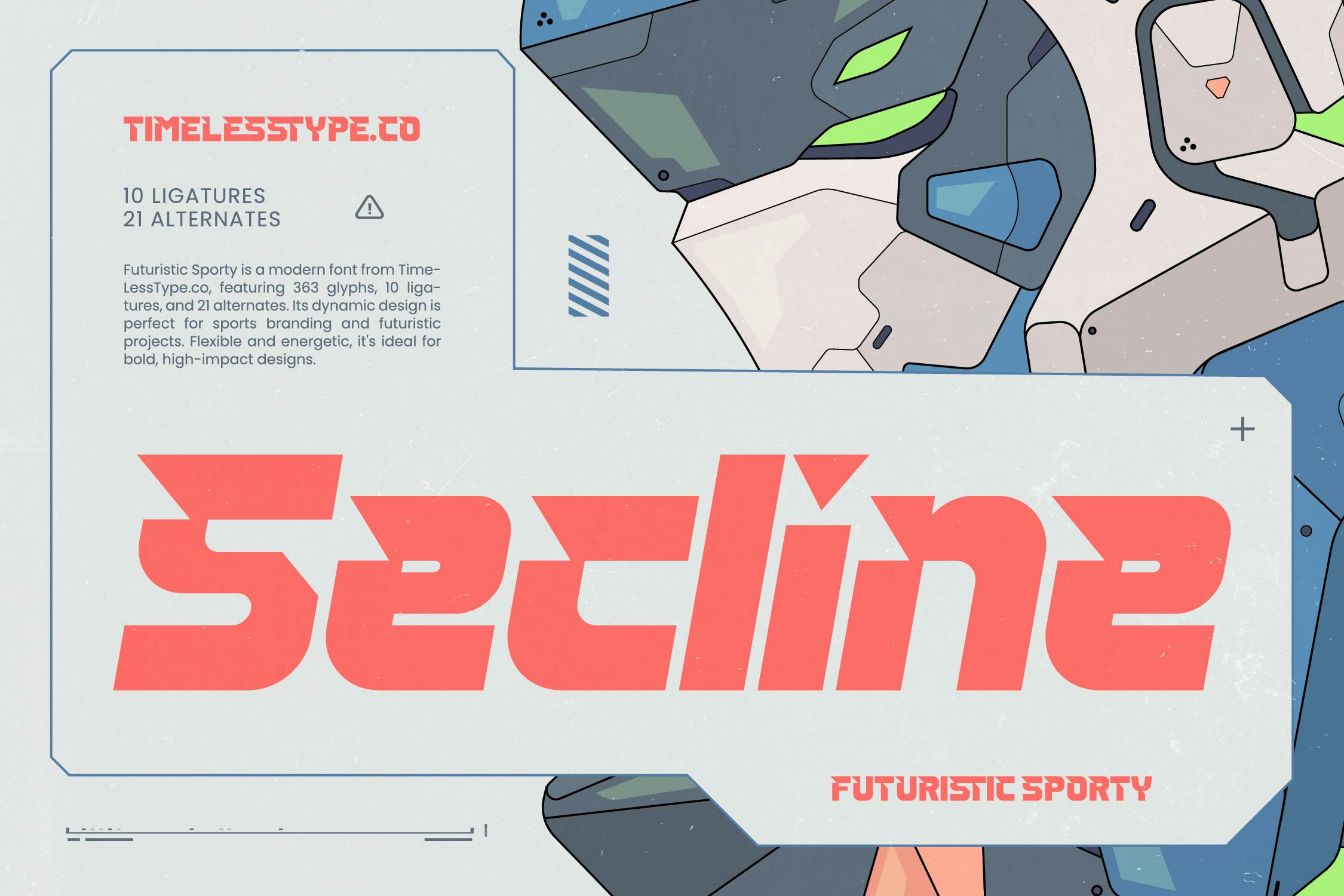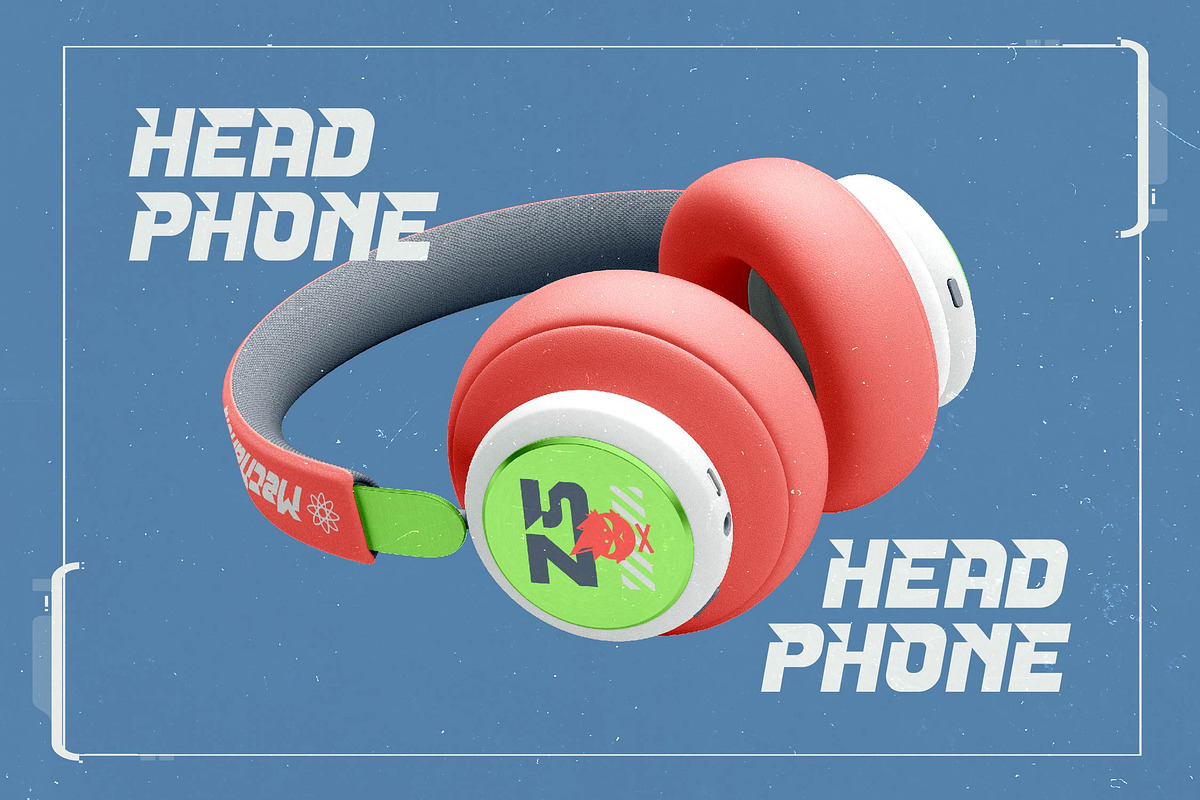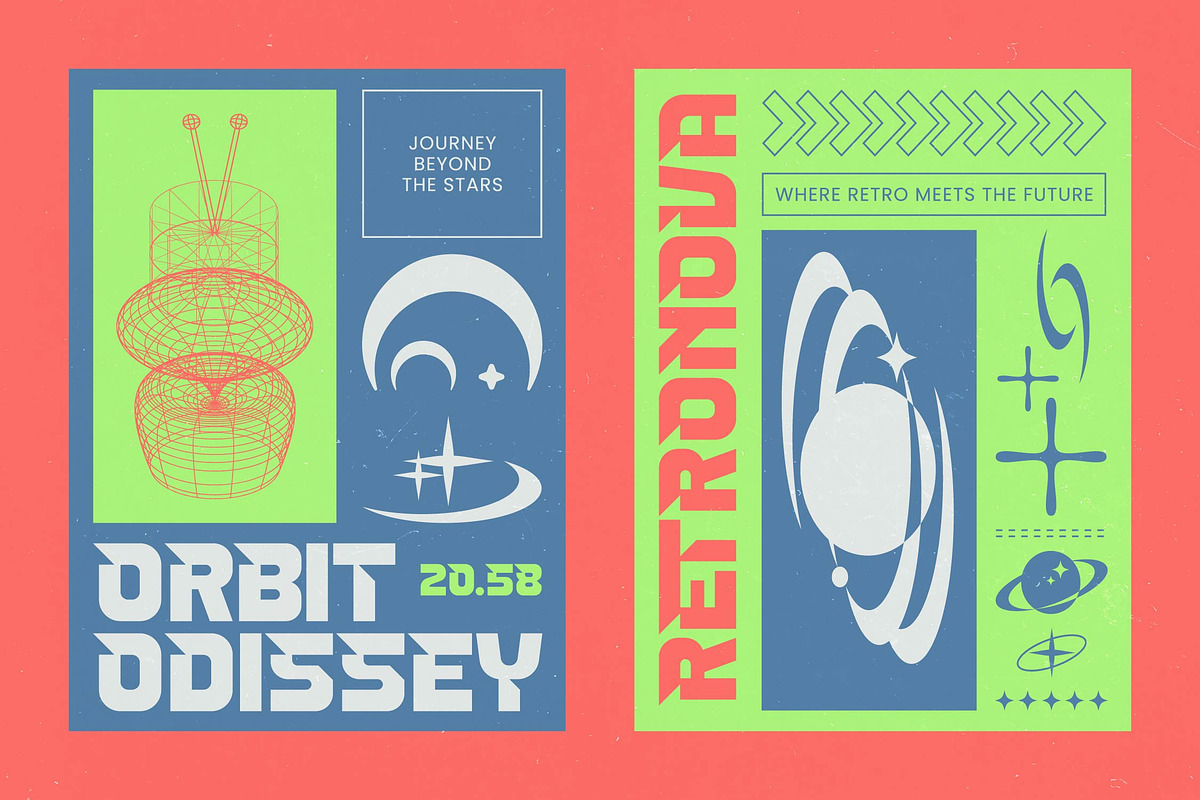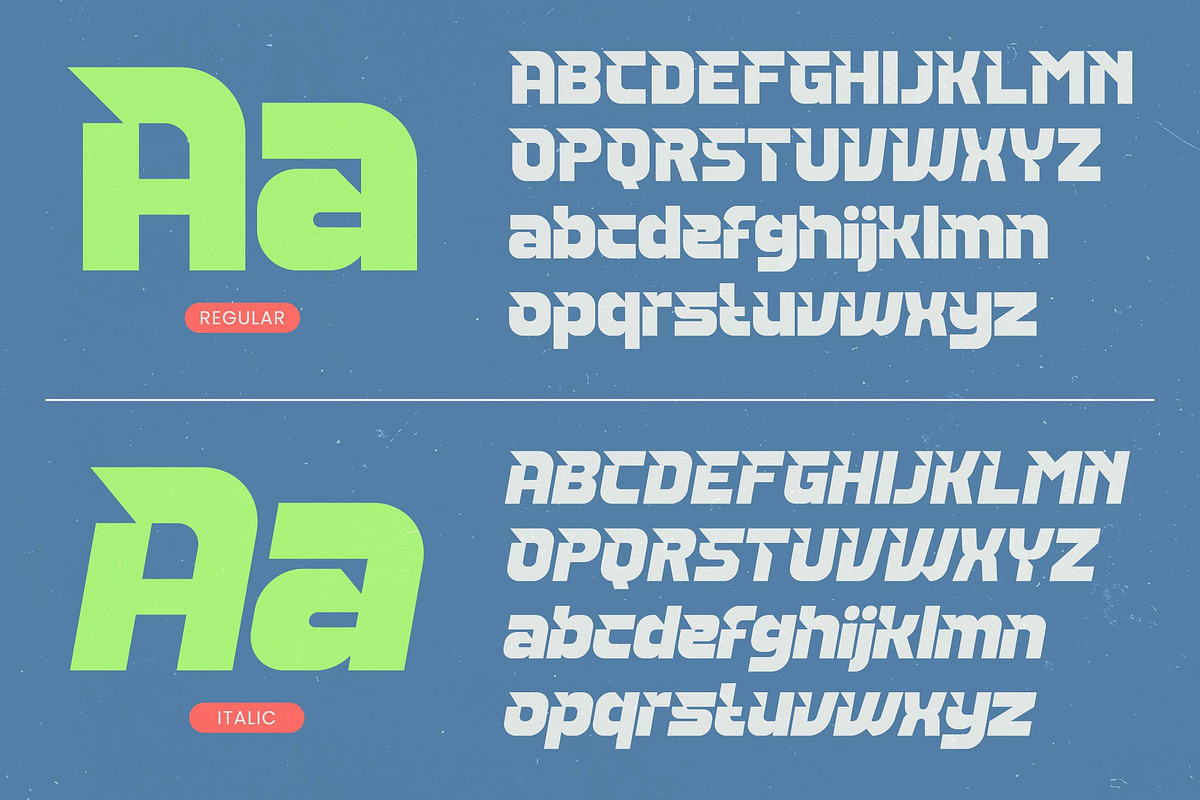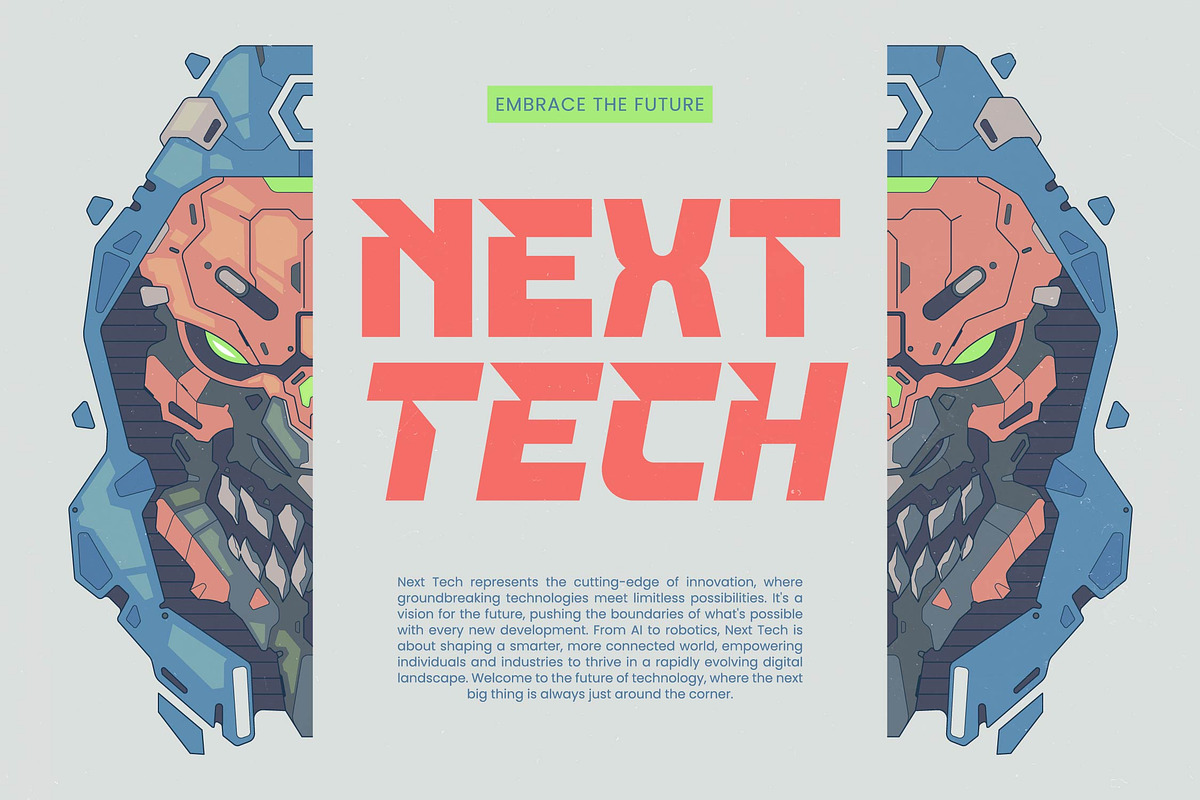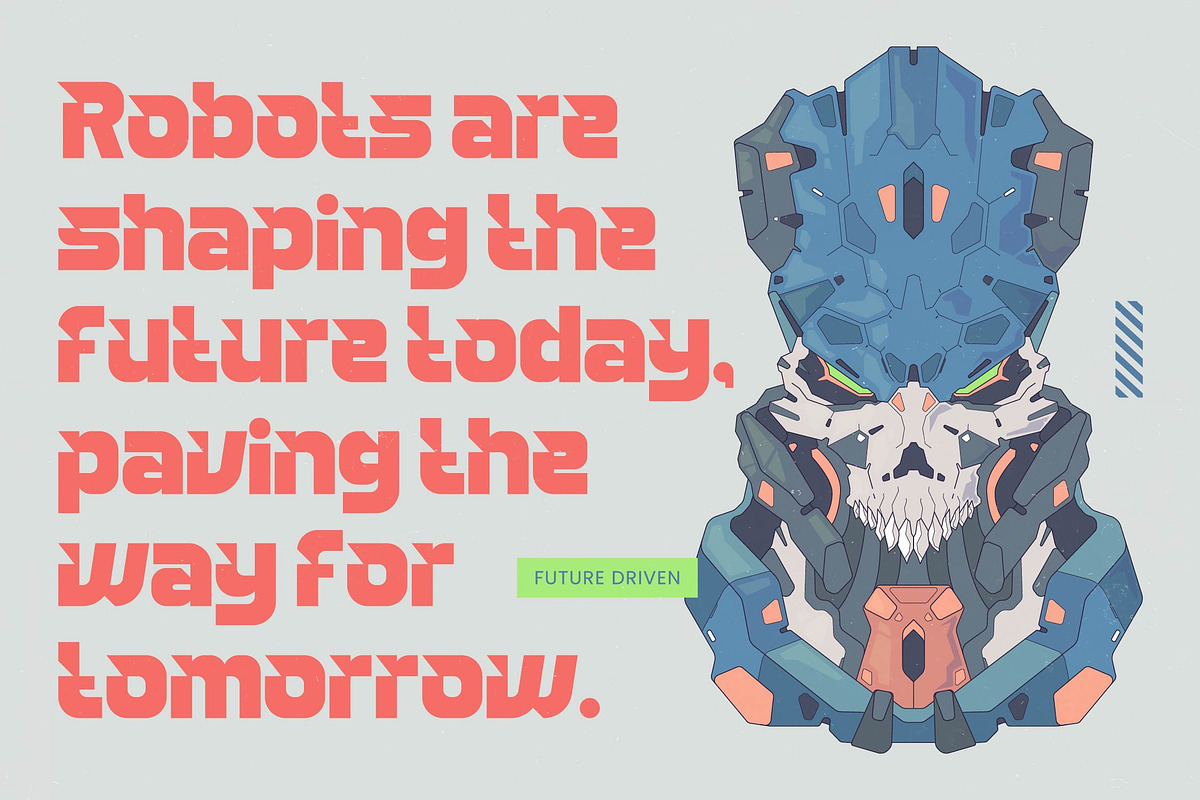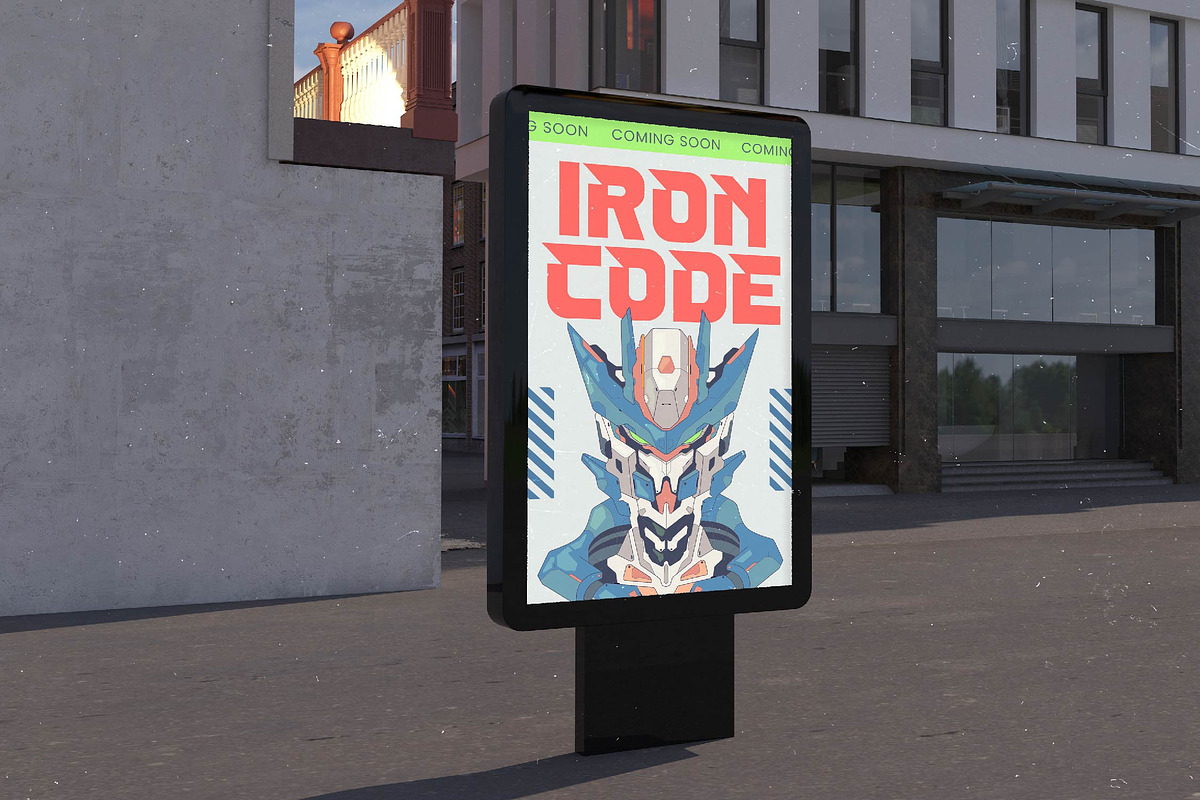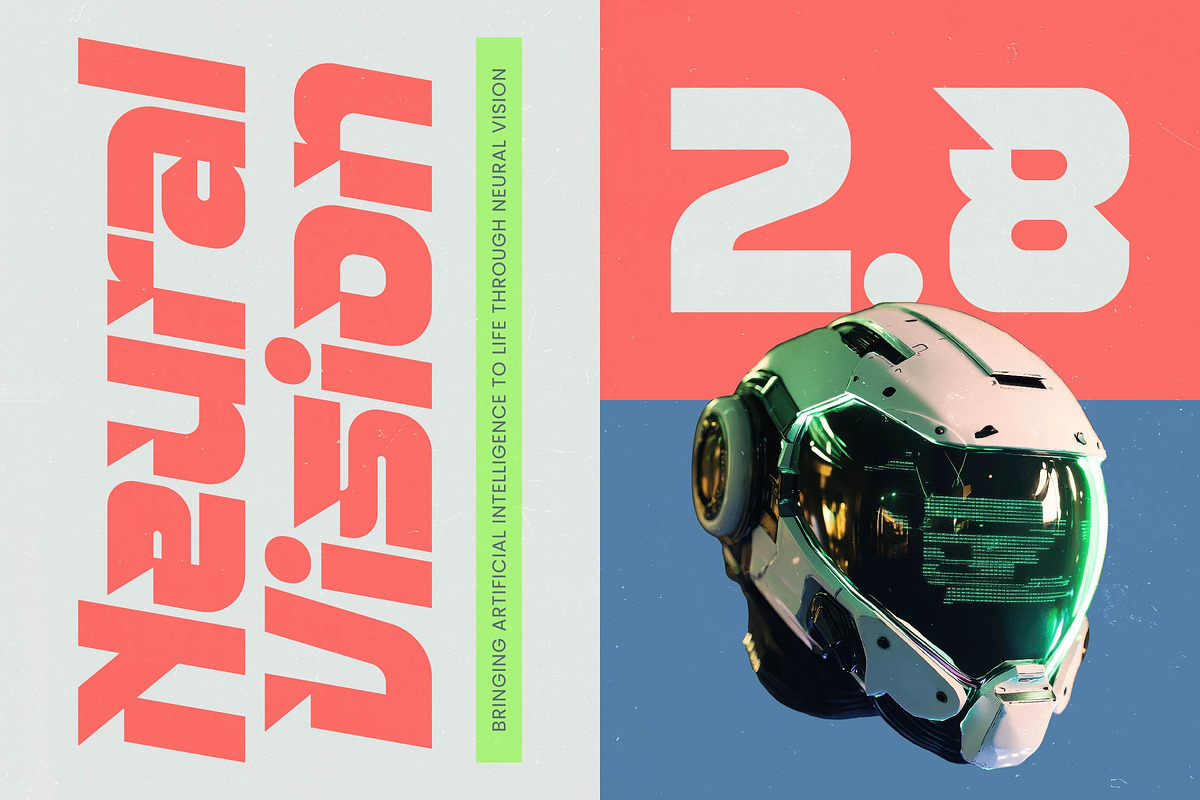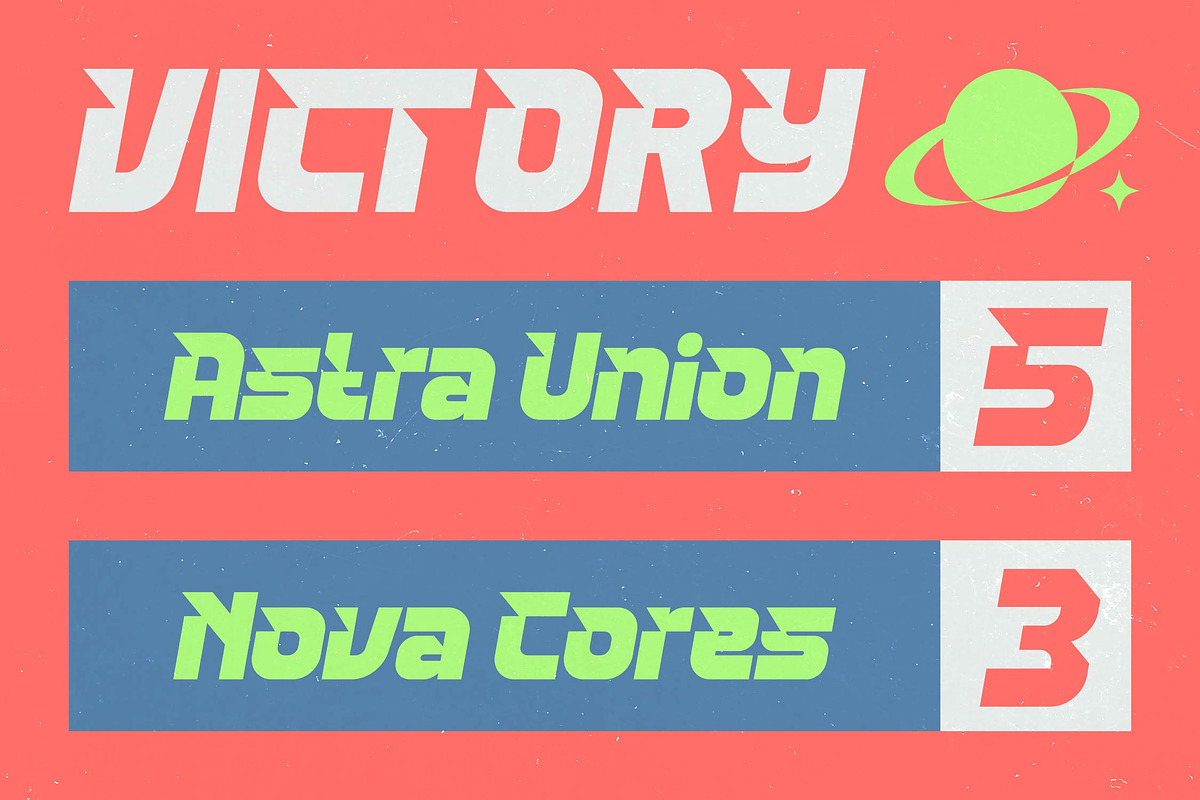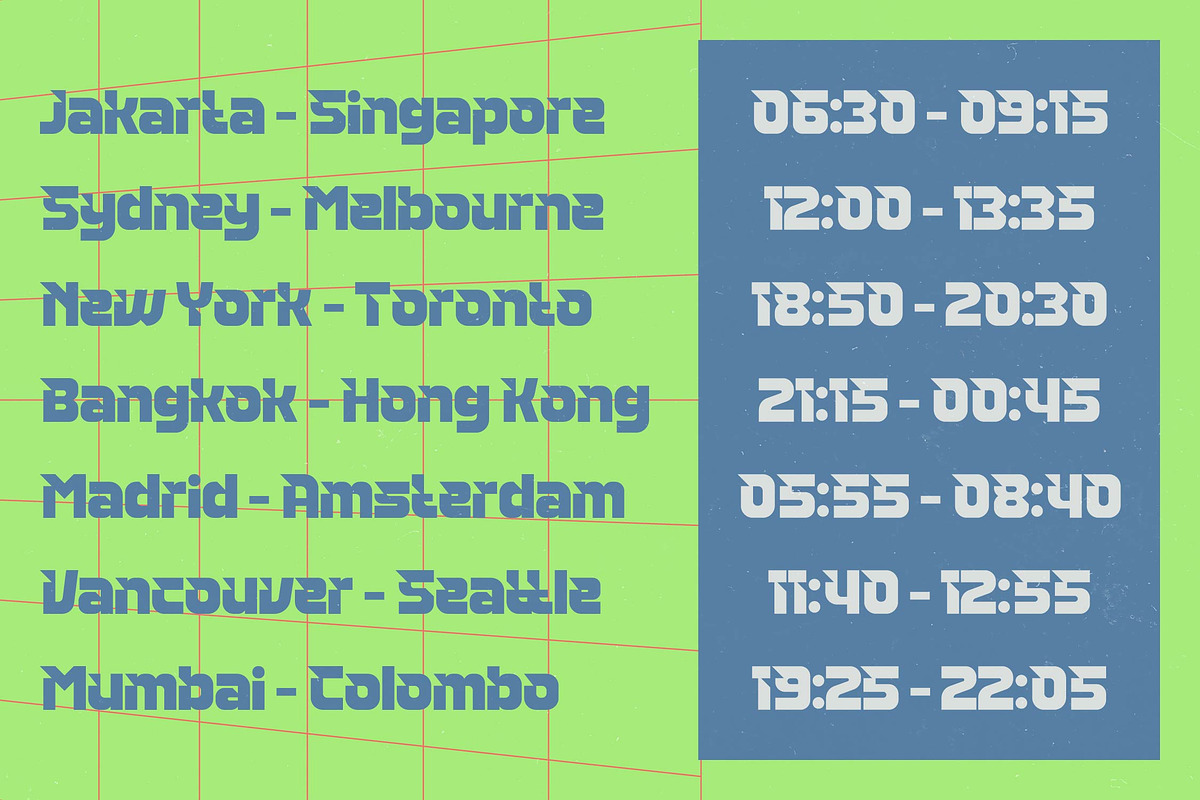
Secline - Futuristic Sporty Font
Secline is a high-octane powerhouse designed to command attention and propel your visual identity into the next dimension of professional design. It stands as the definitive choice for creators seeking a typeface that embodies raw velocity and cutting-edge precision.
Drawing inspiration from heavy mecha aesthetics and aerodynamic sports engineering, this typeface captures the essence of advanced machinery and the energy of professional racing. Every angle and stroke is meticulously crafted to reflect a world where high-tech hardware and athletic speed collide.
This modern serif display delivers an unmistakable branding impact through its heavy weights and aggressive terminals, making it a premier luxury typography choice for the digital age. It serves as a high-contrast serif that offers a distinct editorial font presence, ensuring your message carries the weight of a titanium hull.
Staying ahead of the modern serif trend and the rise of character-driven typography, this font aligns perfectly with the current demand for editorial display fonts. It satisfies the global craving for digital-age aesthetics that dominate modern tech industries and elite gaming subcultures.
Ideally suited for logo design, branding, and high-energy packaging, this font excels in editorial layouts and cinematic title sequences. Whether used for a high-profile wedding in a futuristic setting or a high-end fashion campaign, it provides a robust foundation for any project requiring a bold look.